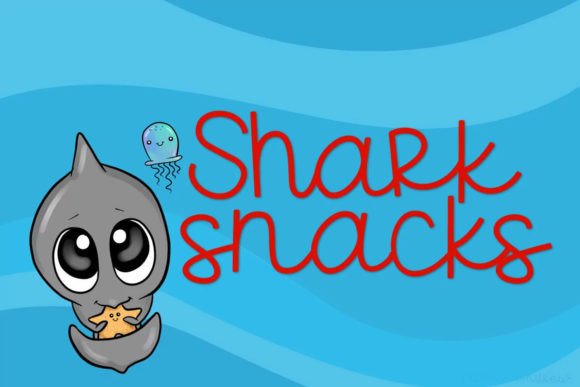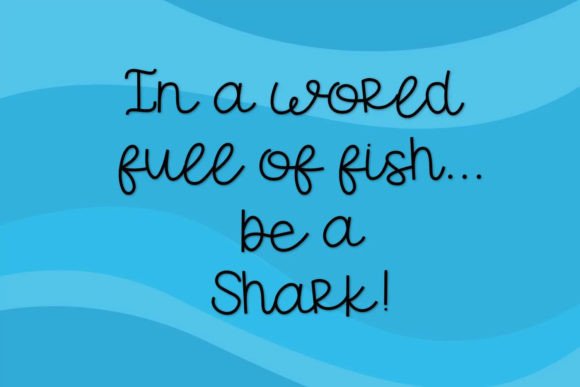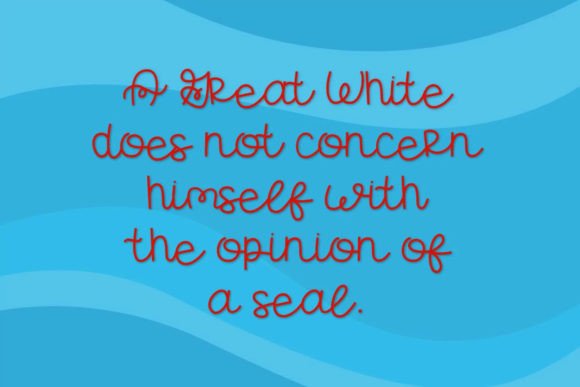
Shark Snacks Font
About Shark Snacks Font
Introducing Shark Snacks, a fun hand-written script font designed to bring adorable flair to your projects. This font includes both uppercase and lowercase letters, along with numbers and punctuation, offering a complete set for your creative endeavors.
The playful and hand-written script style of Shark Snacks adds a charming and lively touch to your text. Whether you’re working on projects for boys, girls, or adults, this font is crafted to bring a fun and delightful vibe to your designs.
Consider using Shark Snacks for a variety of applications, from children’s projects like posters and invitations to playful branding materials and more. The combination of uppercase and lowercase letters, along with the inclusion of numbers and punctuation, ensures versatility and convenience for your design needs.
Let Shark Snacks be the creative tool that adds a touch of whimsy to your next project. Whether you’re aiming for a playful and energetic look or want to inject some fun into your designs, this hand-written script font is sure to make a splash!